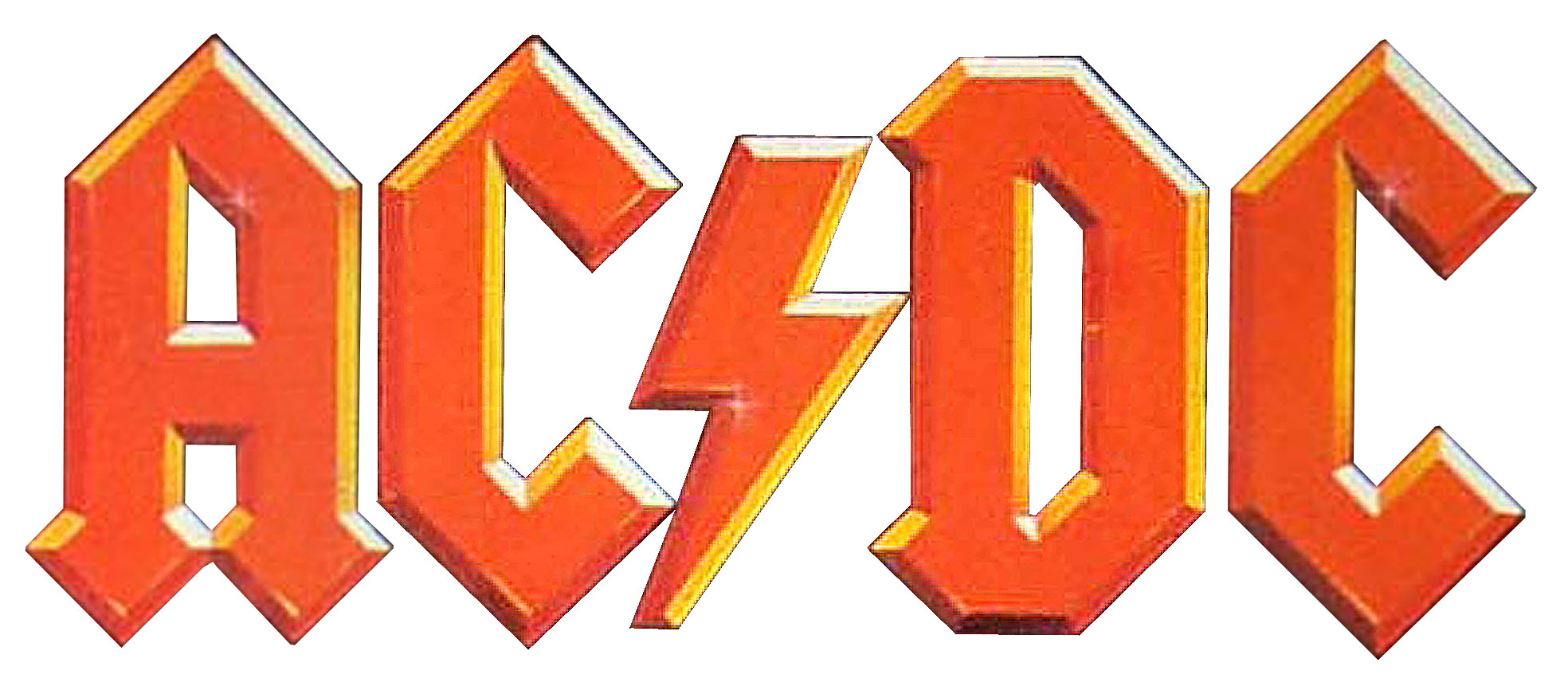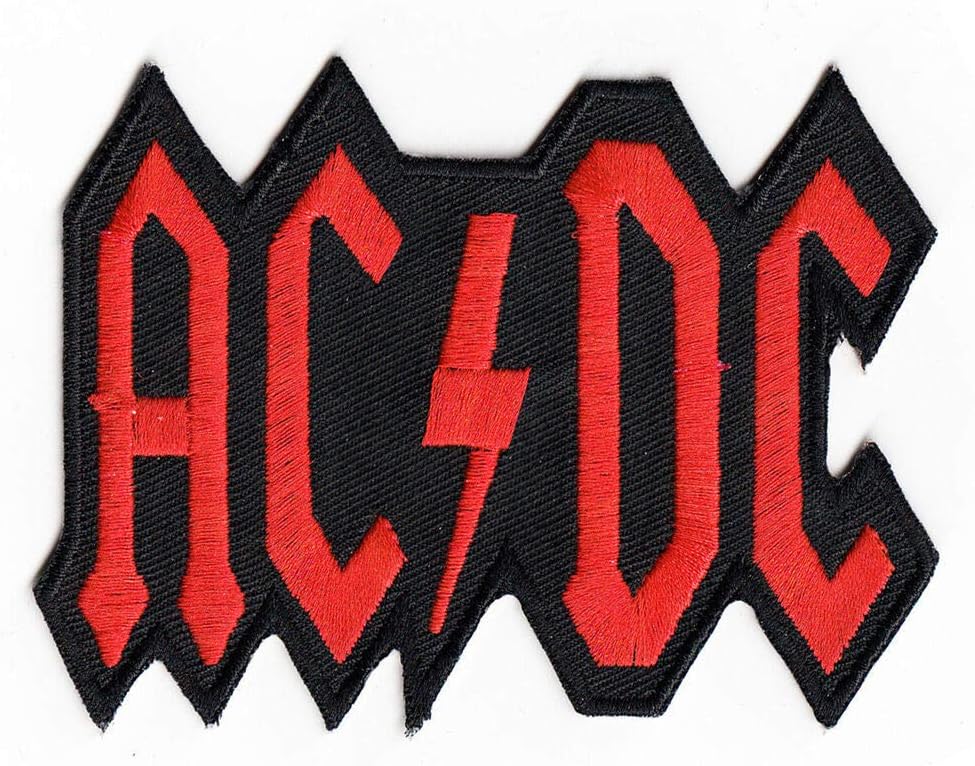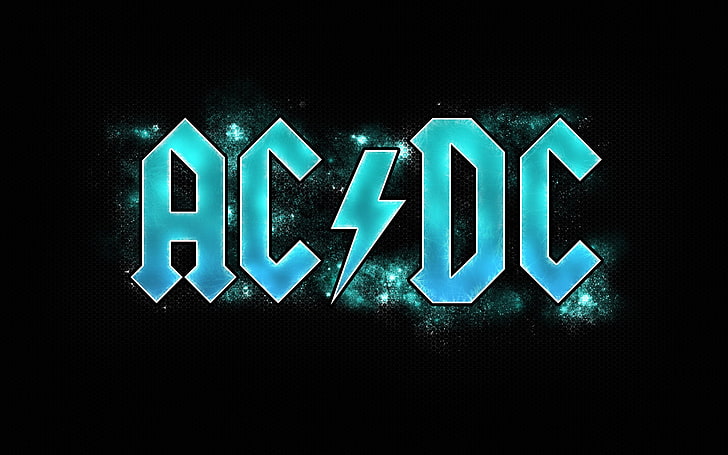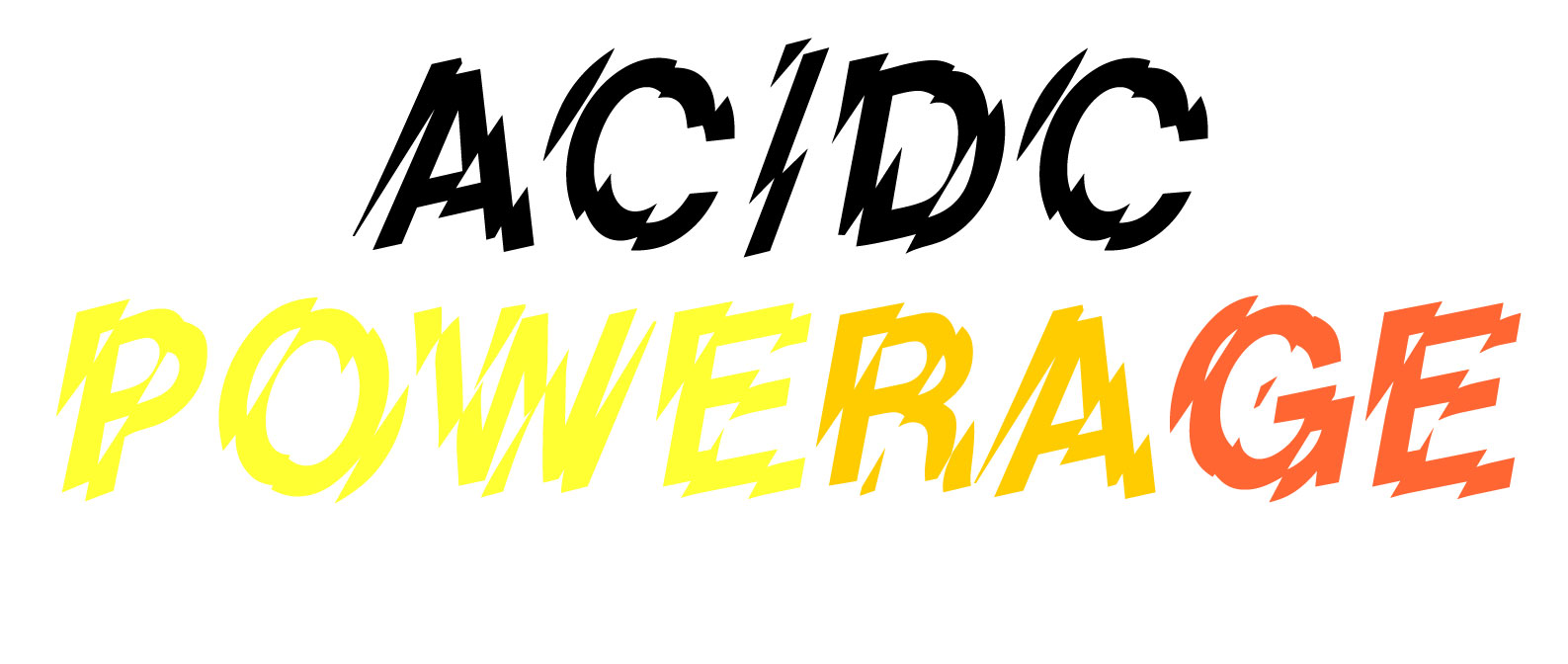
Ac Dc Font
Ac dc font. Click to find the best 31 free fonts in the Rock And Roll style Every font is free to download!. We have 1 free ac/dc fonts to offer for direct downloading · 1001 Fonts is your favorite site for free fonts since 01. The AC/DC logo itself is anything but a dirty deed done dirt cheap Huerta did a fair amount of research and patterned the font style to that of the first printed book, the Gutenberg Bible.
AC/DC (stylised as ACϟDC) are an Australian rock band formed in Sydney in 1973 by Scottishborn brothers Malcolm and Angus Young Although their music has been variously described as hard rock, blues rock, and heavy metal, the band themselves call it simply "rock and roll" AC/DC underwent several lineup changes before releasing their first album, 1975's High Voltage. I try to install Asia language pack for Adobe reader DC, the pack vision is FontPack_XtdAlf _lang_DC , but shom me ths pack is not compatible now the Adobe reader DC version is , my laptop OS si windows 10 1909 so has anyone know how to download the new Aisa language pack. Suggested font Windsor Suggested by bruciol #2 bruciol Quote Jun 16, 14 at 1709 ces ce qui ce rapproche le plus Suggested font Windsor All times are CET The time is now 1010 Reply Newer Topic Older Topic.
Looking for Rock And Roll fonts?. Deutsch Erreicht nicht die benötigte Schöpfungshöhe, jedoch markenrechtlich geschützt Hinweis = Bei Google findet man, wenn man als Suchbegriff acdc font eintippt, eine Seite, auf der man die Schriftart Squealer herunterladen kann Das ist die AC/DC Schrift Gameboys 1242, 28Jun 08 (CEST). Apr 14, 19 This Pin was discovered by Jeannie Almonte Discover (and save!) your own Pins on.
Generate cool and amazing fonts by using ac dc font generator Simply generate and share with your friends. Download the free font replicating the title logo from the album AC/DC 'Powerage' and many more at the ORIGINAL Famous Fonts!. What font is used in the AC/DC logo?.
AC/DC Font, Download AC/DC ttf truetype or zip Free Free Windows Fonts for Donwload. AC/DC ‘Powerage’ Shatter LET Plain by unknown A font based on the title logo from the album AC/DC ‘Powerage’ The forward slash is modified on the Music. Font Meme is a fonts & typography resource The "Fonts in Use" section features posts about fonts used in logos, films, TV shows, video games, books and more;.
Looking for Dc Ac fonts?. Download Squealer font or use it online to create hundreds of different logo styles. What's the font used for AC DC logo?.
Font Meme is a fonts & typography resource The " Fonts in Use " section features posts about fonts used in logos, films, TV shows, video games, books and more;. このロゴは1977年にGerard Huertaがデザインしたもので、黒い文字でAC DCと描き、文字列の真ん中に稲妻のシンボルを配置しています。ロゴを再現するには、Squealerというフォントが使えます。 Font Memeは、フォントやタイポグラフィのリソースです。. Click to find the best 1 free fonts in the Dc Ac style Every font is free to download!.
Deutsch Erreicht nicht die benötigte Schöpfungshöhe, jedoch markenrechtlich geschützt Hinweis = Bei Google findet man, wenn man als Suchbegriff acdc font eintippt, eine Seite, auf der man die Schriftart Squealer herunterladen kann Das ist die AC/DC Schrift Gameboys 1242, 28Jun 08 (CEST). What font does AC/DC use?. May 26, 19 This Pin was discovered by PequeKid Discover (and save!) your own Pins on.
Reply Administrator says October 5, 16 at 858 am. AC/DC is a hard rock band from Australia, which was formed in November 1973 Or maybe you are just a fan of the AC DC font style Well, this AC DC logo font is not so available online Whatsoever, we were able to find some sources where you could get these AC DC lightning bolt fonts or fonts that are similar to that. Free download of Squealer Font Family with 2 styles Released in 1997 by Ray Larabie and licensed for personal and commercialuse.
May 22, 16 Download the free font replicating the logo from the music group AC/DC and many more at the ORIGINAL Famous Fonts!. The logo AC/DC uses the Squealer font click here to download AC/DC logo font About fonts Font by Typodermic Fonts. The " Text Generator " section features simple tools that let you create graphics with fonts of different styles as well as various text effects;.
AC DC Font Generator Generate Designs with AC DC Font The following tool will convert your entered text into images using AC DC Font, then you can right click on the image to download it. AC/DC Font, Download AC/DC ttf truetype or zip Free Free Windows Fonts for Donwload. The "Text Generator" section features simple tools that let you create graphics with fonts of different styles as well as various text effects;.